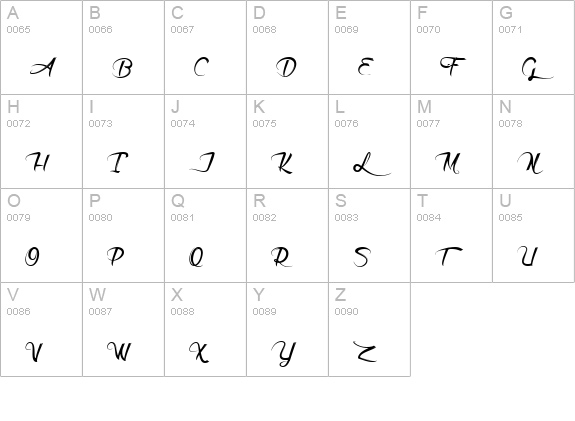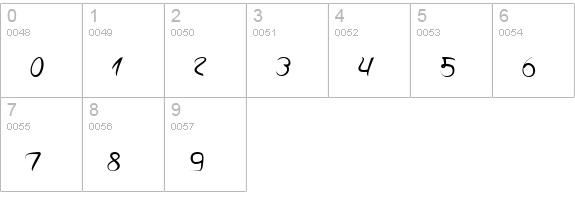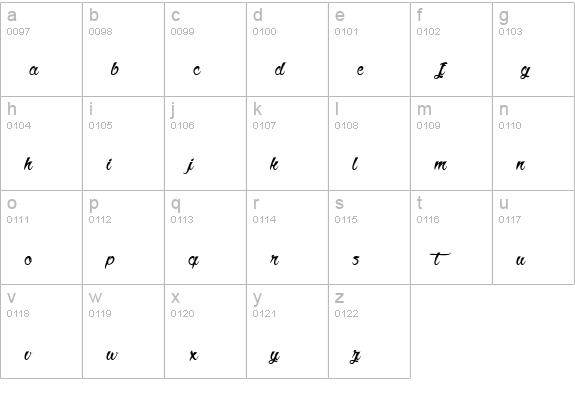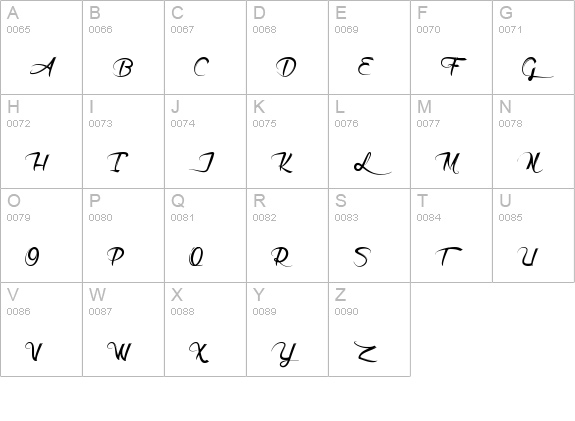
Akhenaton Font Details
Akhenaton font is a stunning typeface that embodies elegance and sophistication. Drawing inspiration from the ancient Egyptian civilization, this font showcases intricate details and an impressive level of craftsmanship. Its clean lines and carefully crafted curves make it a versatile choice for a wide range of design projects. With its timeless appeal, Akhenaton font adds a touch of class to any design, whether it's a logo, packaging, branding, or a website. Its bold yet refined appearance makes it stand out among other fonts, capturing attention and leaving a lasting impression. One of the best parts about Akhenaton font is that it is free. Yes, you read that right! You can easily download this font without spending a single penny. It is freely available to download at FontsMarket.com, a trusted source for high-quality fonts. Whether you are a professional designer or someone looking to add a unique touch to your personal projects, Akhenaton font is a must-have in your font collection. Its versatility, elegance, and the fact that it is free make it an irresistible choice for both beginners and experienced designers alike. So why wait? Head over to FontsMarket.com and download Akhenaton font today. Unleash your creativity and elevate your designs with this exquisite typeface.